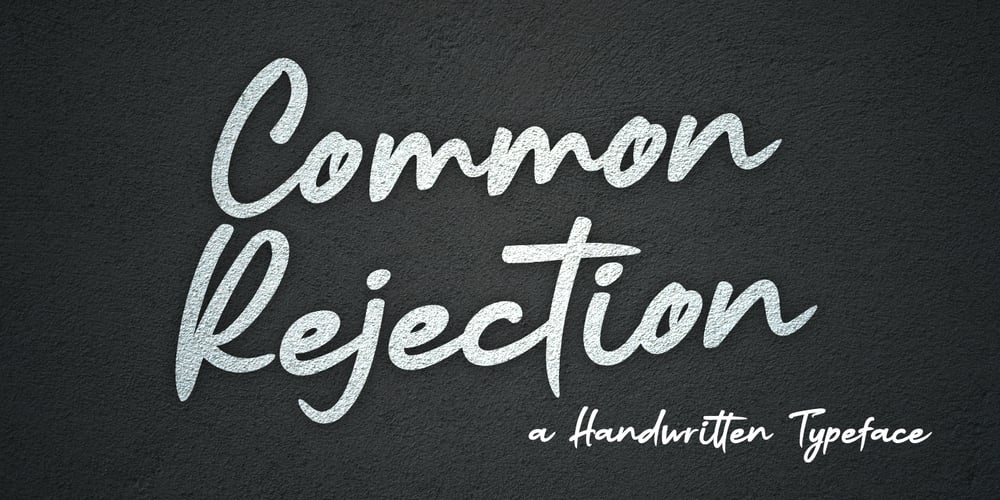
Common Rejection
Common Rejection font
Common Rejection Font Family was designed by Toni Dzulham and published by Dumadi. Common Rejection contains 1 styles and family package options. Common Rejection is a modern stylish font that is attractive to any project and can be applied in logos, quotes, travel titles, movie titles, blogs, show event titles, t-shirt designs, tumbler designs, community and company logos.